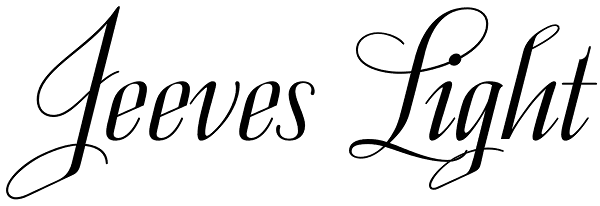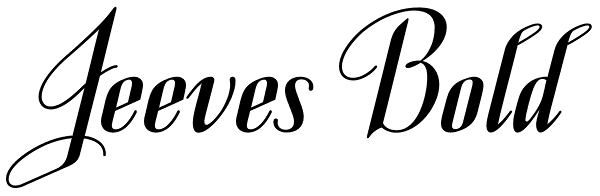
Jeeves
The inspiration for Jeeves came from Leslie Carbarga's wonderful book LETTERHEADS, One Hundred Years of Great Design, 1850-1950. It was based on a secondary type usage for the letterhead for Sutherland in New York. The rest of the letterhead had...
Jeeves Light
Jeeves Bold